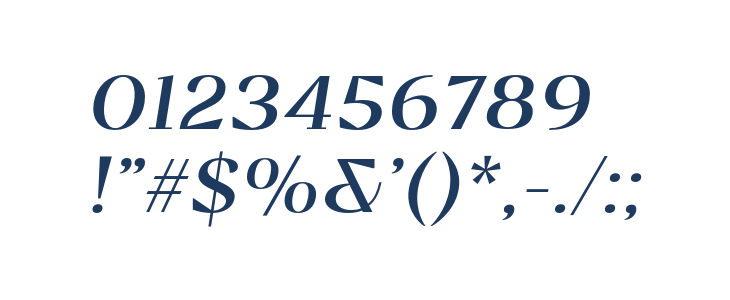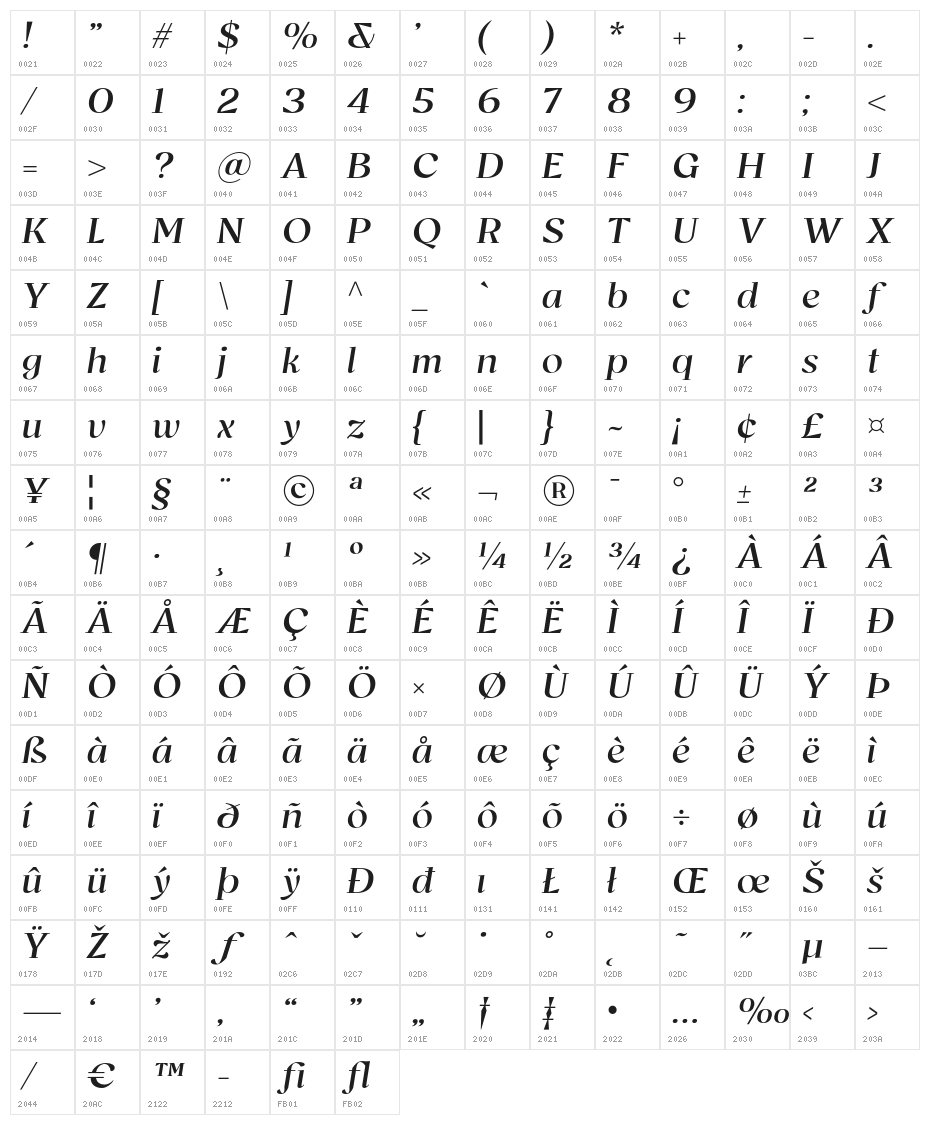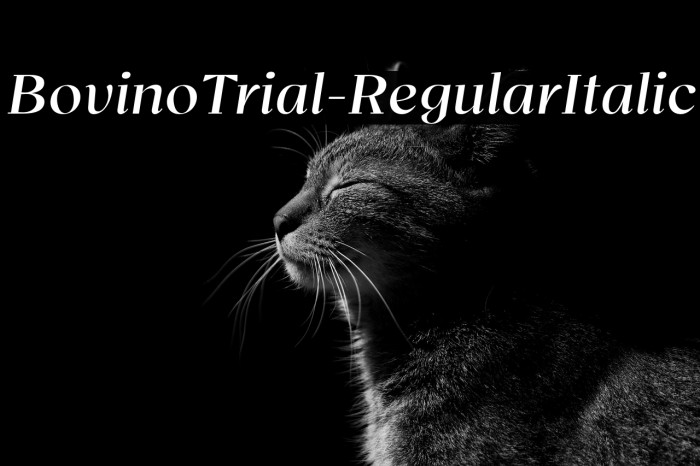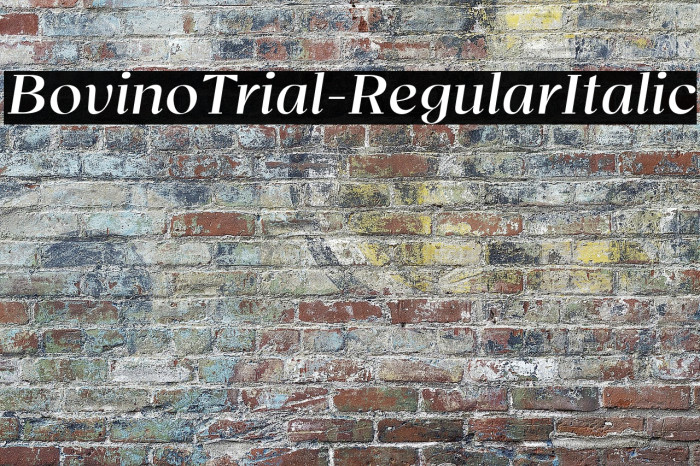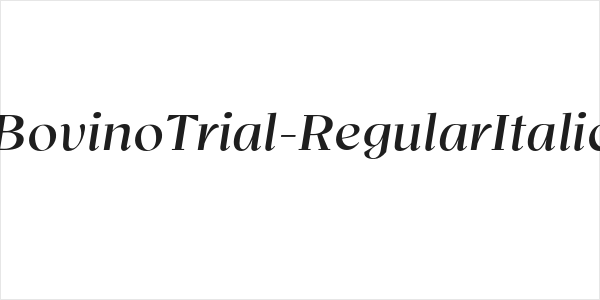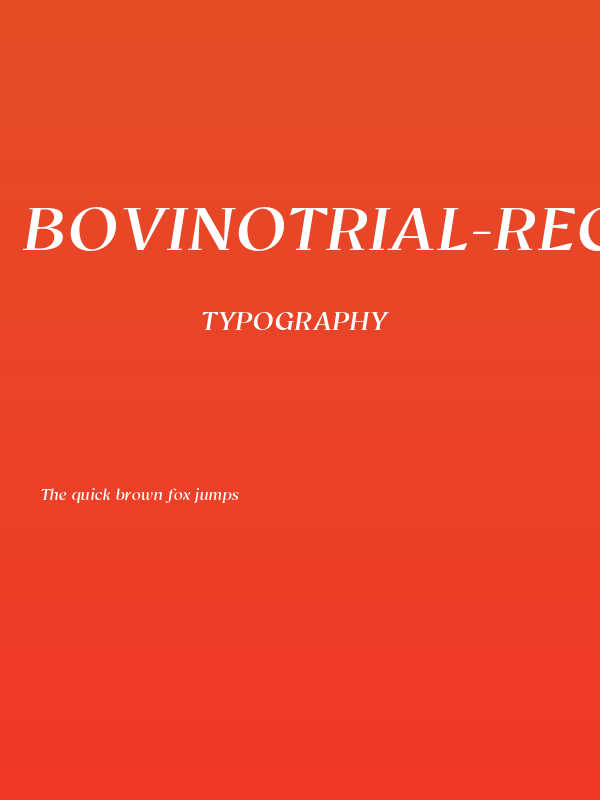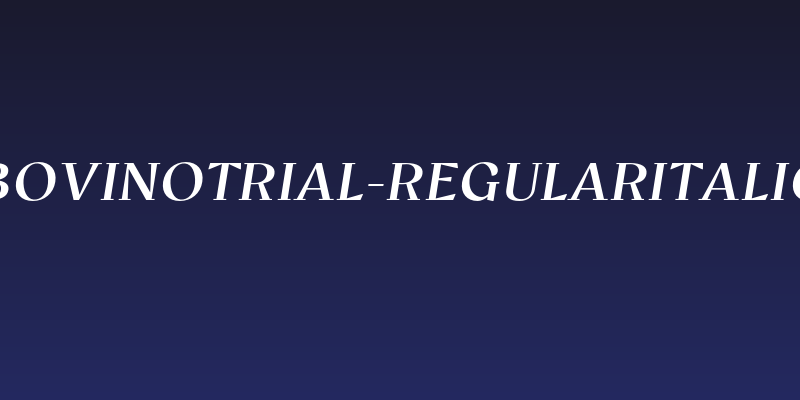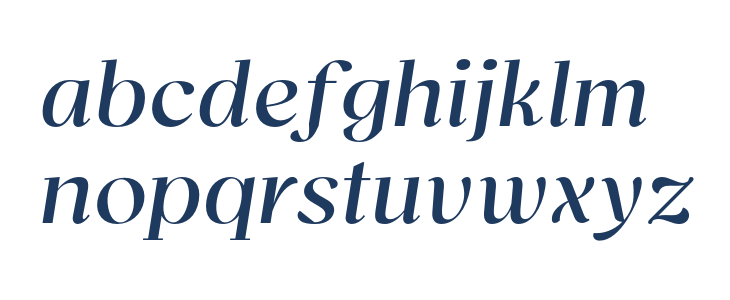
BovinoTrial-RegularItalic Font
BovinoTrial-RegularItalic Description
This font features a sophisticated and elegant design with a slight italic slant, giving it a dynamic and fluid appearance. The characters are well-proportioned, with a moderate contrast between thick and thin strokes, enhancing readability while maintaining a stylish look. The serifs are subtle yet distinct, adding a touch of classic elegance. The overall design is clean and refined, making it suitable for a variety of applications that require a touch of sophistication.
| Proposed Projects | Ideal for editorial design, book covers, formal invitations, and branding projects that require a classic and sophisticated touch. |